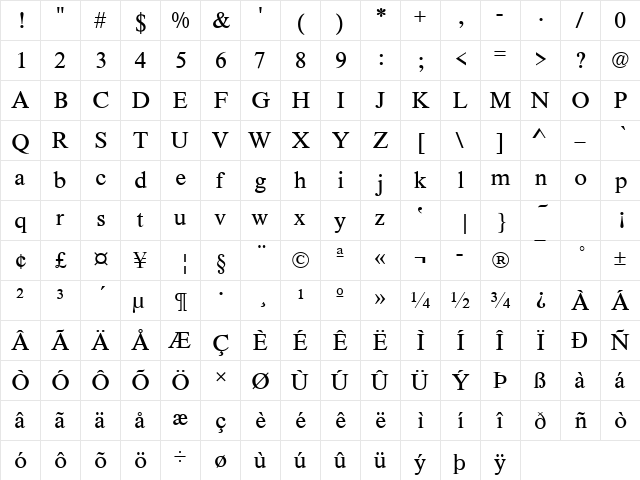
NimbusRomNo2TReg Regular
Design Context for NimbusRomNo2TReg Typeface
NimbusRomNo2TReg offers clean, dependable letterforms without strong stylistic allegiance, making it a practical choice for designers who need flexibility.